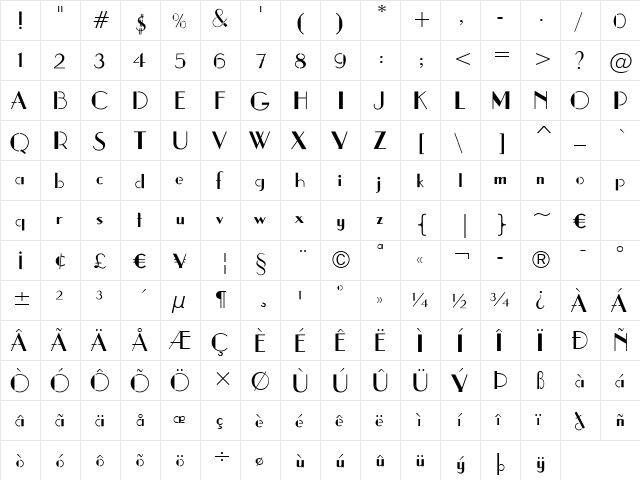
stencil1935 Regular
Design Context for stencil1935 Typeface
stencil1935 has the rough pragmatism of spray-painted stencil signage, adding a raw, street-level authenticity to designs.
A strong choice for packaging that needs edge, warehouse aesthetics, and rough-and-ready visual identities.
Pro Tip: Use stencil1935 at large sizes on packaging, posters, or apparel where the stencil cutaways read clearly. Avoid small sizes where those gaps become visual noise.